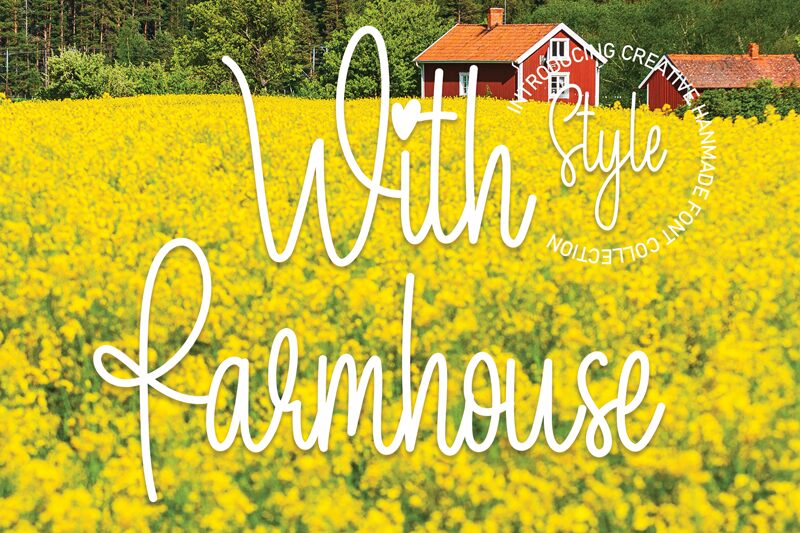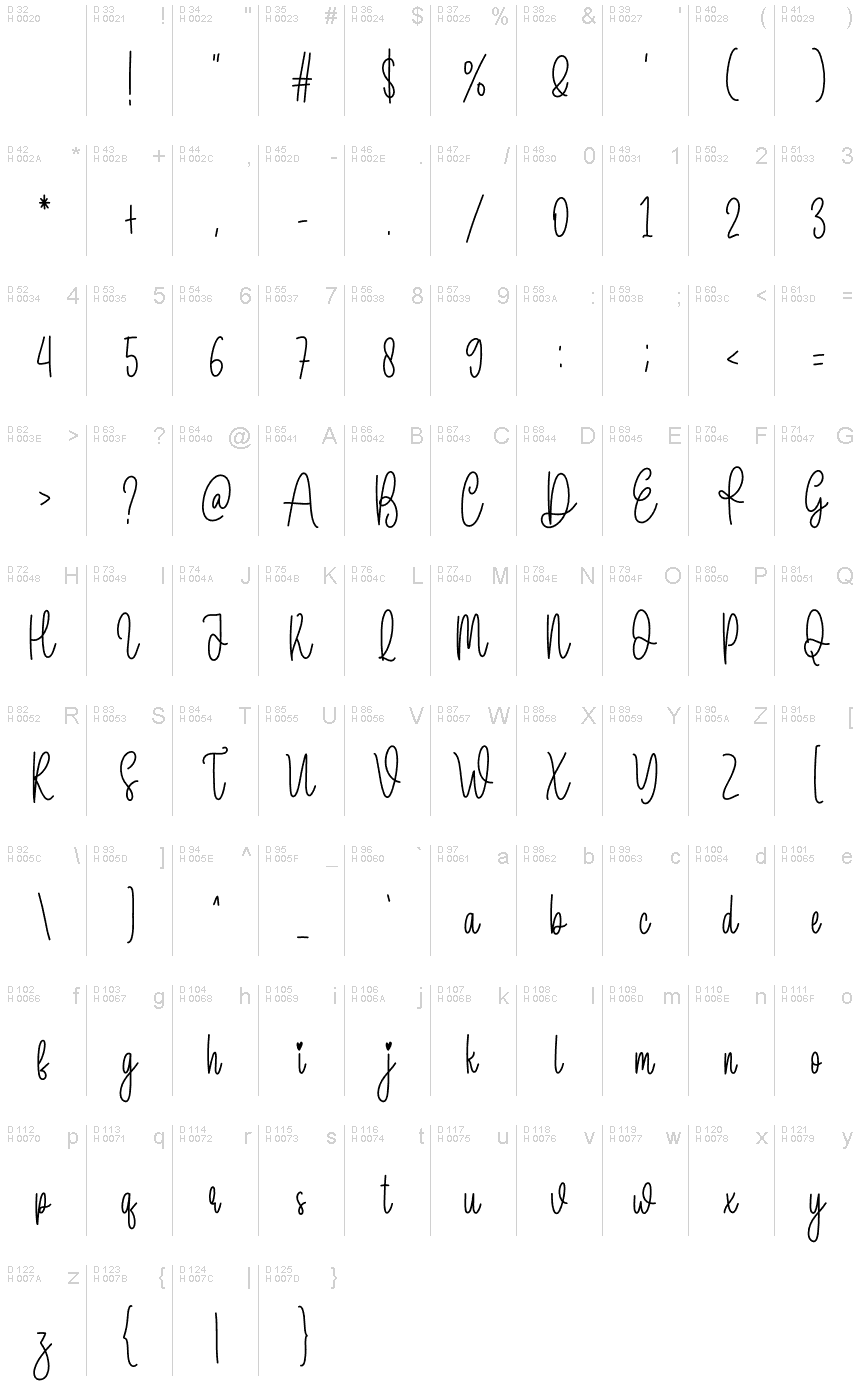
With Farmhouse
With Farmhouse, designed by Scratchones, is a semi-light, condensed font that captures the essence of personal touch with its handwritten style. Its elegant curves and flowing lines offer a sense of warmth and intimacy, making it an ideal choice for designs that require a touch of human sincerity.
With Farmhouse excels in projects that benefit from its aesthetic appeal, such as bespoke invitations, branding for artisanal products, or any creative endeavor that seeks to evoke a cozy and inviting atmosphere. Its condensed width ensures that it stands out in tight spaces without compromising on readability-perfect for headlines or product labels seeking to make an impact while maintaining an air of sophistication.